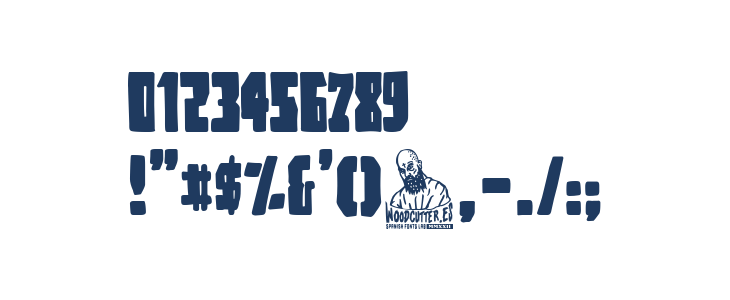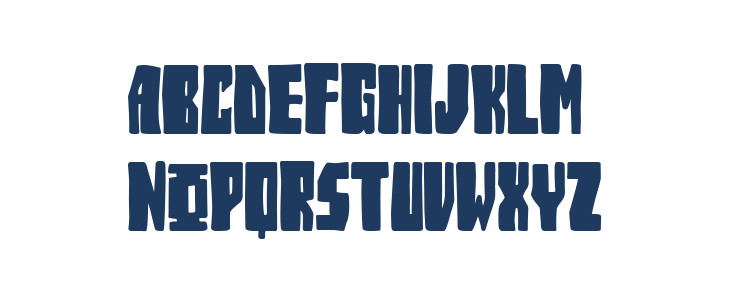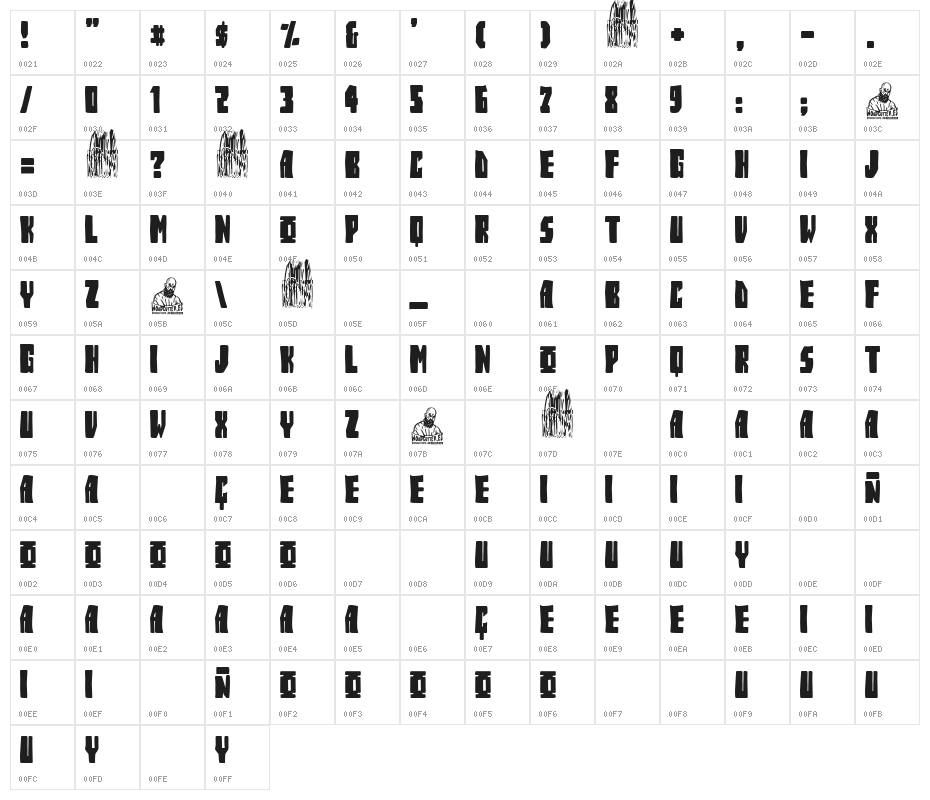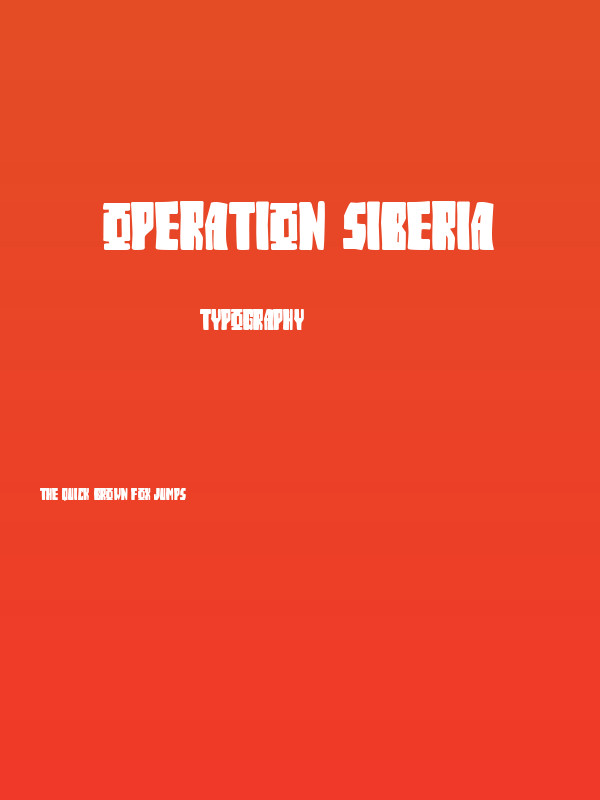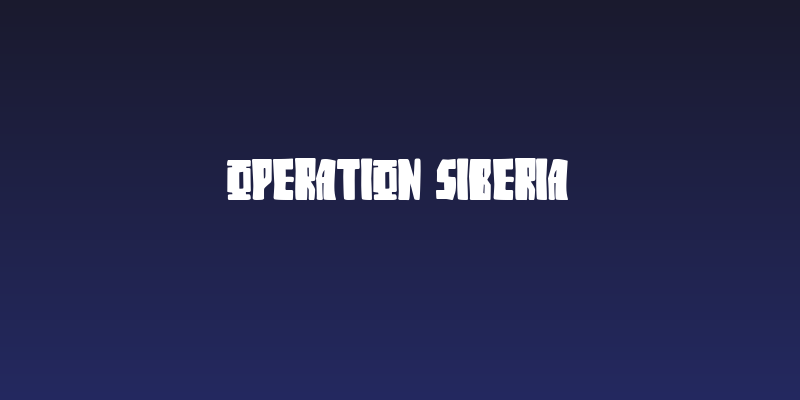
Operation Siberia Font
Operation Siberia Description
A bold, blocky display font with irregular, hand-cut edges and a strong, rugged appearance. The characters are uppercase with a heavy weight and condensed width, giving a sense of strength and impact. The font features uneven contours and a slightly distressed look, suitable for attention-grabbing designs.
| Overall Style | Decorative, Rugged, Handcrafted |
| Use Case | Headlines, Posters, Logos, Event Titles |
| Proposed Projects | Posters, video game titles, event flyers, horror or action-themed graphics, branding for extreme sports or adventure products. |